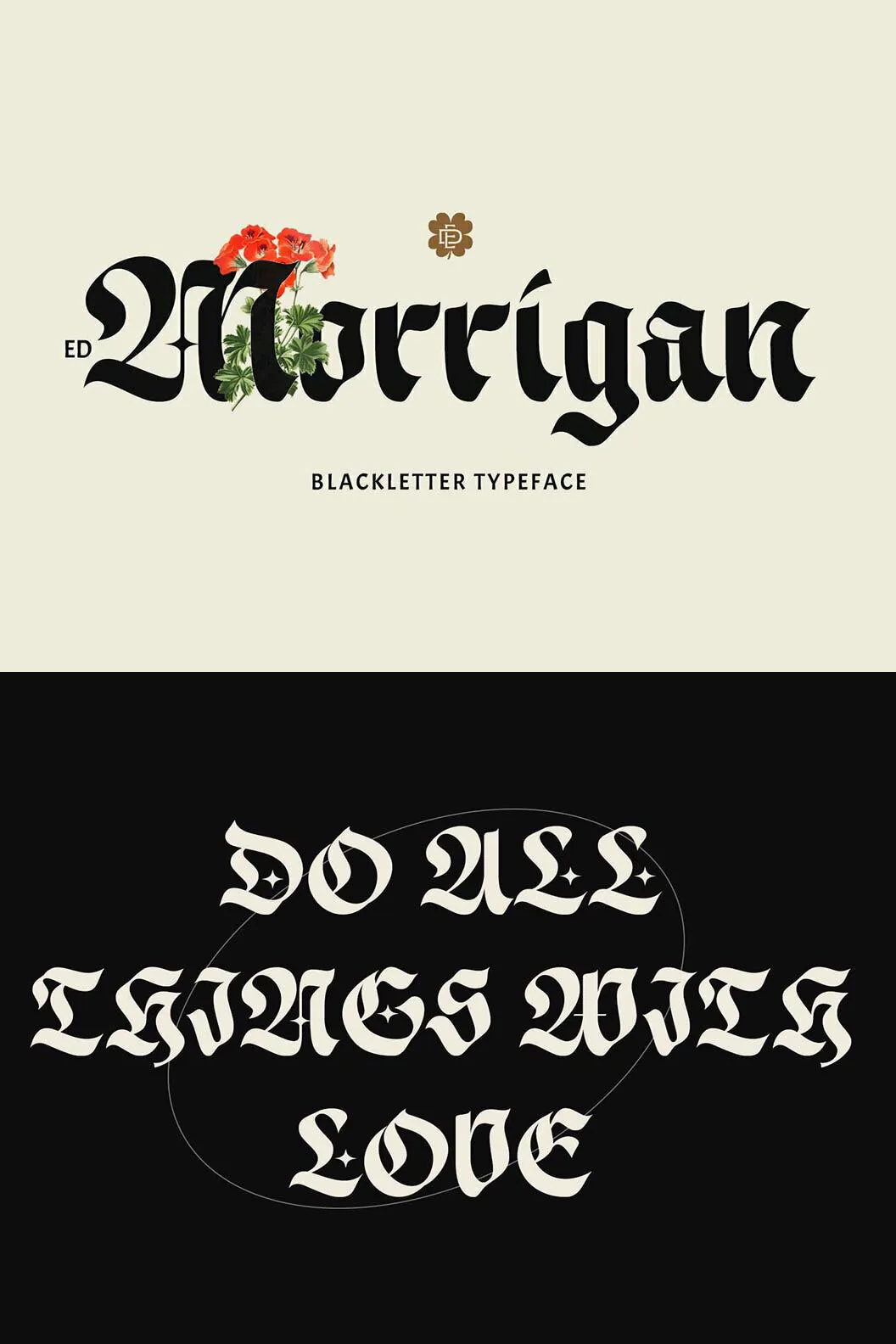
ED Morrigan FonttypesiteJanuary 31, 2024Display Discover the timeless allure of ED Morrigan, a vintage blackletter fontexuding elegance and style, complete with ligature features andmultilingual suppo…SKU T14050 Download Here